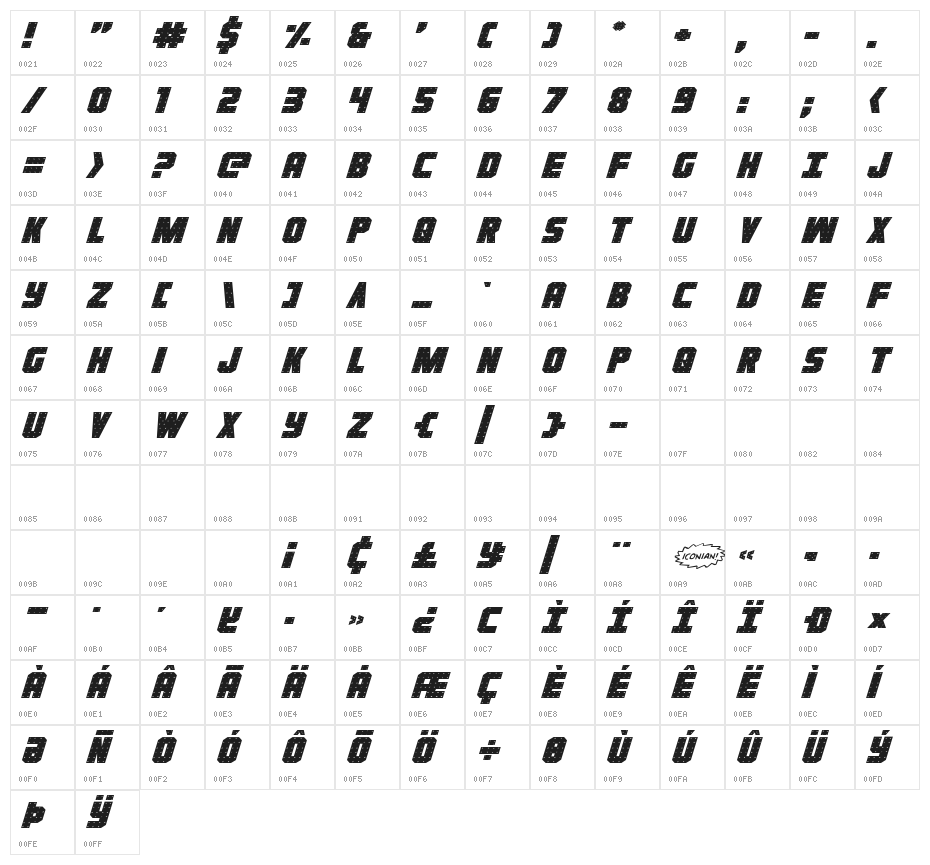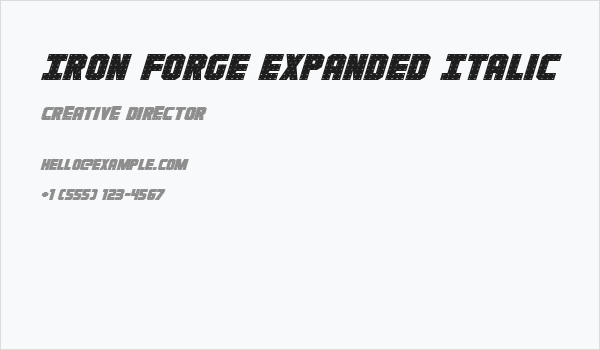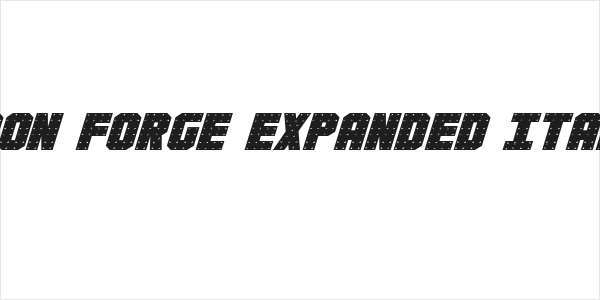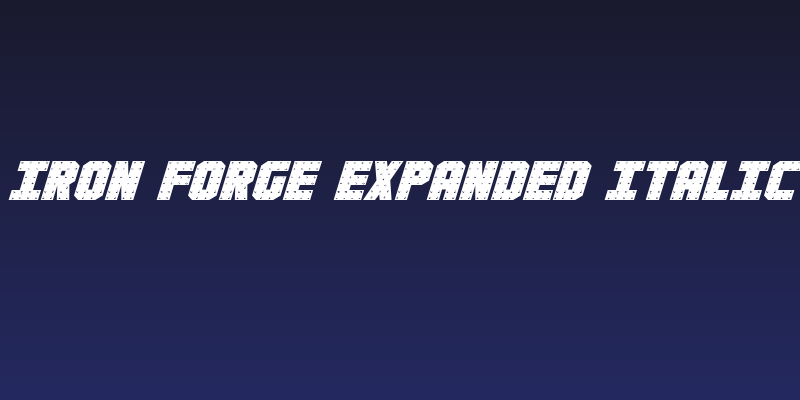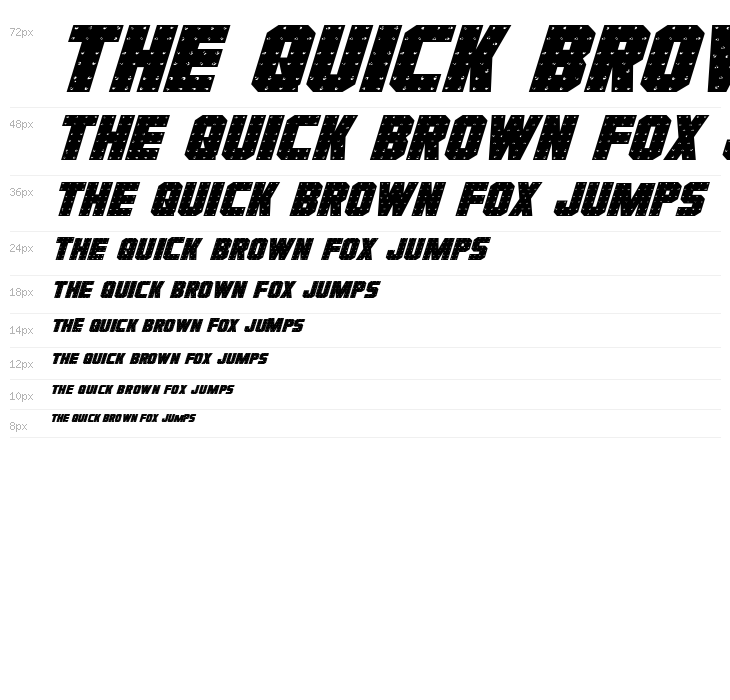
Iron Forge Expanded Italic Font
Iron Forge Expanded Italic Description
This font features a bold and dynamic style with an italic slant, giving it a sense of motion and energy. The characters are expanded, providing a wide and impactful presence. Each letter is filled with a unique pattern of small, evenly spaced dots, adding a decorative and modern touch. The uppercase and lowercase letters maintain a consistent style, with sharp angles and clean lines that enhance readability. The numbers and special characters follow the same design principles, ensuring uniformity across all elements. This font is ideal for projects that require a strong visual impact and a contemporary aesthetic.
Proposed ProjectsIdeal for branding, posters, sports team logos, and dynamic advertising campaigns.